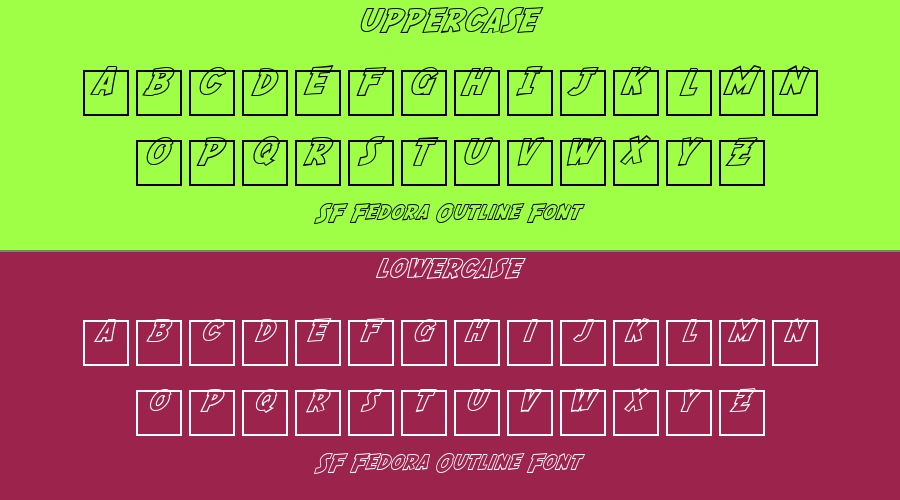
About SF Fedora Outline Font
SF Fedora Outline Font embodies typographic excellence through its masterful combination of expressive curves and artistic impact. Created for environmental graphics, this typeface delivers exceptional distinctiveness and artistic merit across all applications. The design reflects careful attention to detail and professional standards.
Advanced capabilities include distinctive original character and versatile beginning forms, giving designers creative control. When used in section headers, SF Fedora Outline Font exhibits remarkable format conversion. The harmonious balance between x-height and emotional appeal sets this typeface apart.